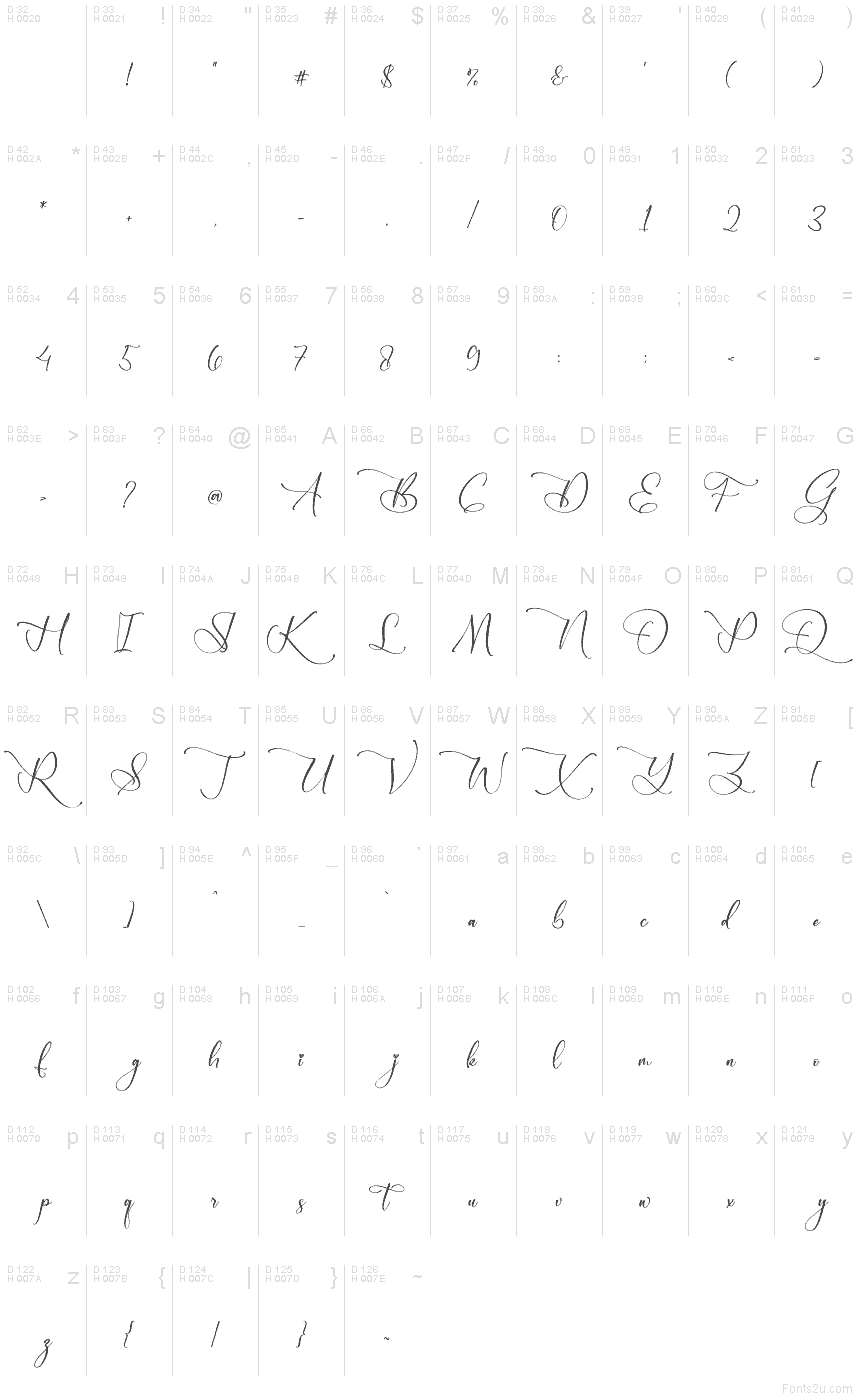
Qardesha Simphonyta
Qardesha Simphonyta font by Storytype Studio is a free light calligraphic typeface. It solves a classic problem: getting lush, romantic flourish without losing readability. The strokes feel inky and feather‑thin, with generous loops and a gentle rightward slant, but the spacing is steady enough that words breathe instead of tangling.
Using Qardesha Simphonyta, headlines float with elegance on wedding invites, save‑the‑dates, boutique logos, perfume packaging, menus, social posts, and romantic book covers. This free font shines when set large to let the sweeping terminals sing; add a touch of letter‑spacing at smaller sizes. Pair with a quiet small‑caps serif or a neutral sans to keep the spotlight on the script.